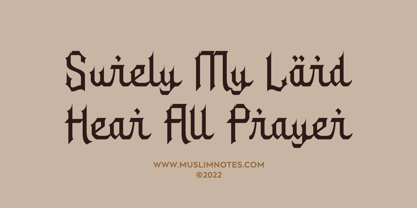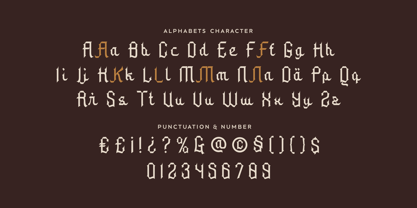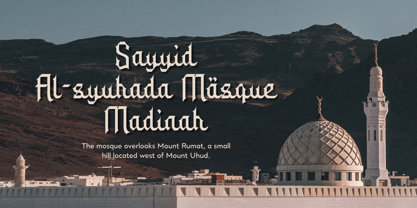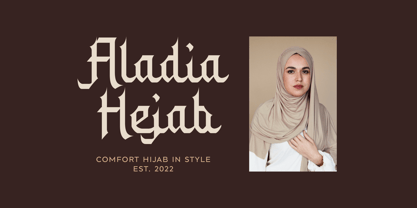
Kulaefy
by Imoodev
The Kulaefy Font Family was designed by Aulia Savira Putri and published by Imoodev. Kulaefy contains 1 styles. More about this family
Kulaefy is a serif islamic font that reflects elements of traditional arabic calligraphy, particularly through its pointed and angular serifs, which emulate pen strokes. It is well-suited for titles, headings, and artistic applications, as well as cultural or religious contexts, especially in designs inspired by middle eastern themes.
Designers: Aulia Savira Putri
Foundry: Imoodev